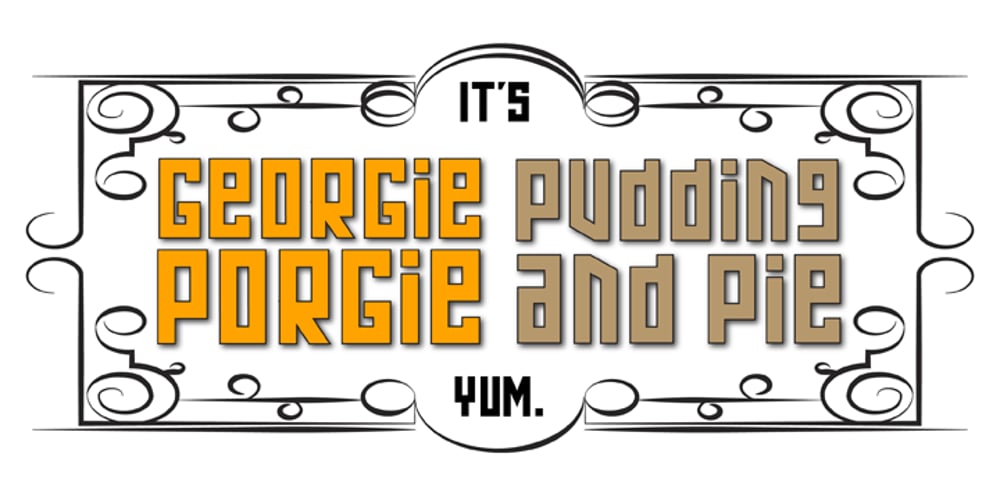
Kolega
Kolega font
Kolega Font Family was designed by Randy Harris and published by Just My Type. Kolega contains 3 styles and family package options. Maybe I should have named this font “Communist Block”. But it also works well for Colonial-style tavern signs. It’s square, geometric and rigid, and is the perfect thing for totalitarian themes. The family consists of three fonts: Kolega (“Comrade” in Polish), Kolega Tall, and Kolega Podrobska (Fake Comrade). Kolega and Kolega Tall are fully charactered with U.S., European, Greek and Cyrillic glyphs. The latter font is meant to use in English only; although it contains many accents and character variations, they mean nothing. It’s a joke.